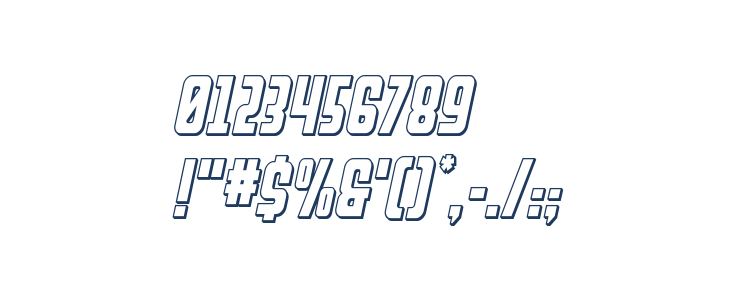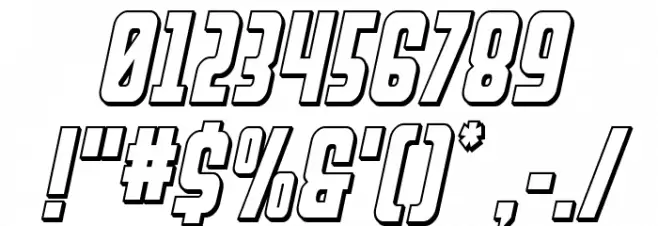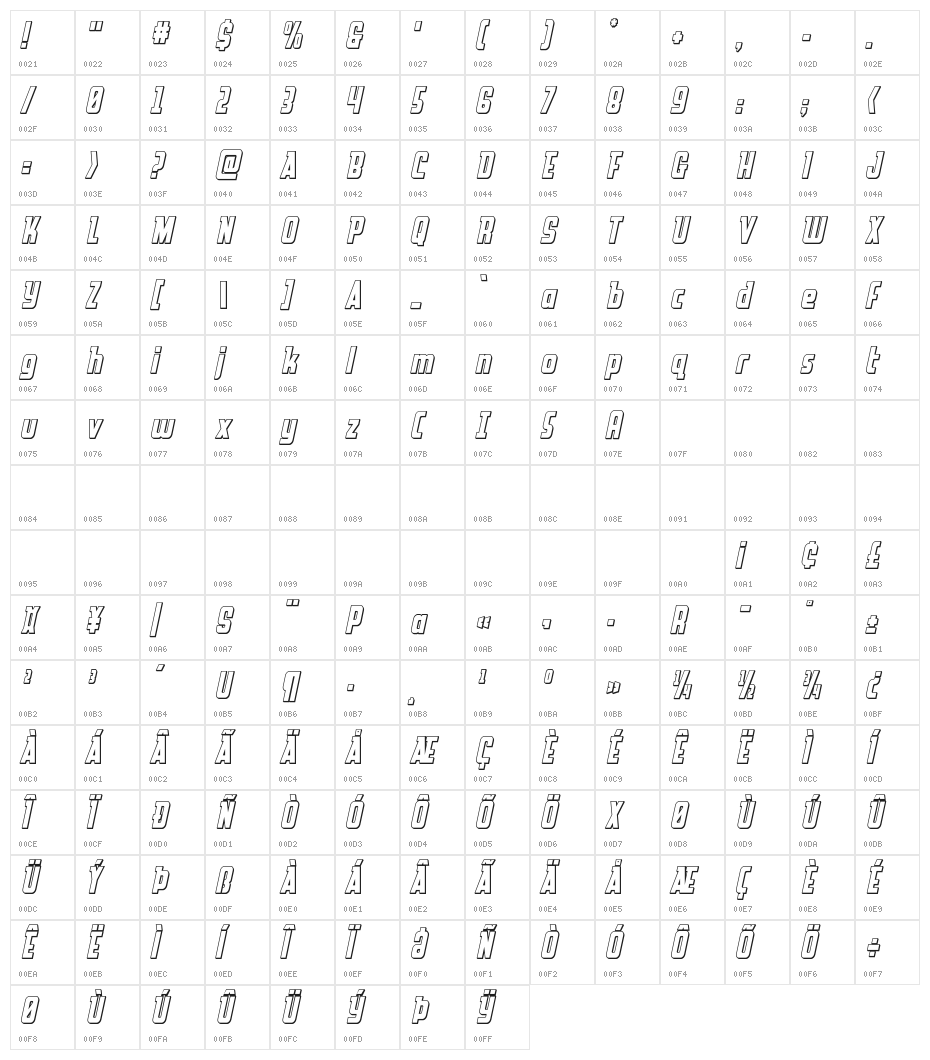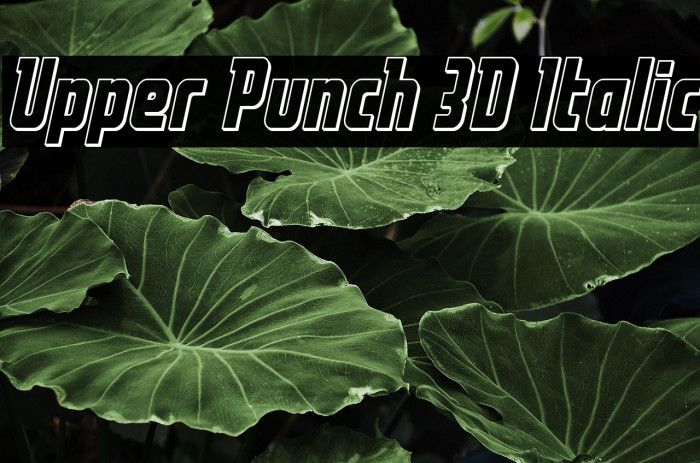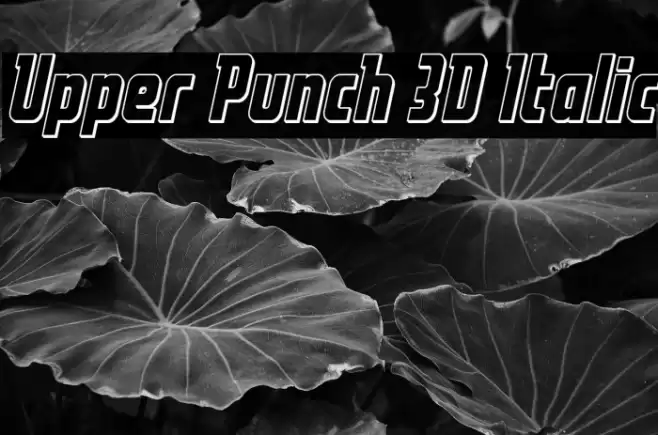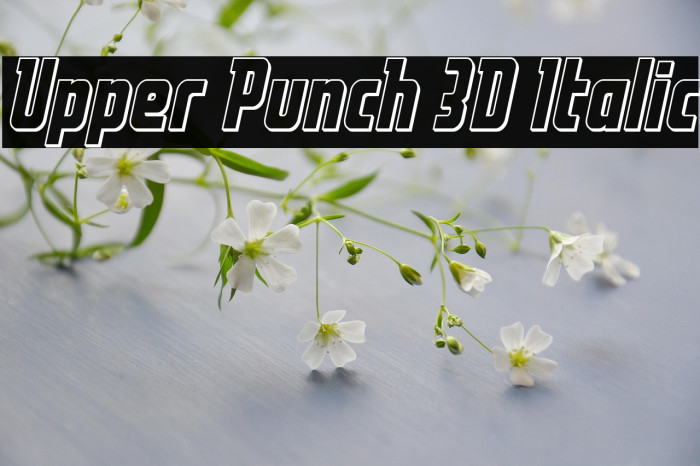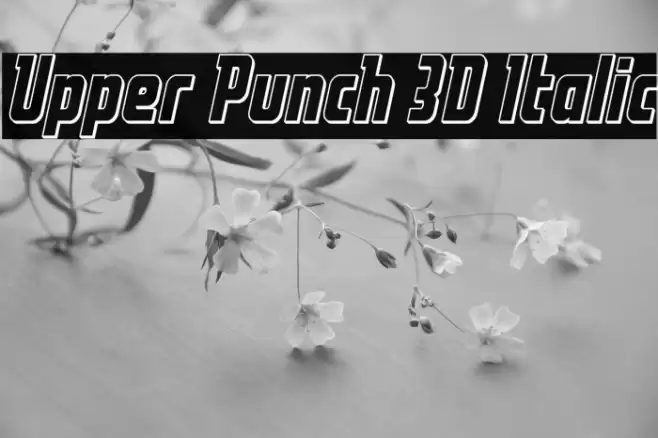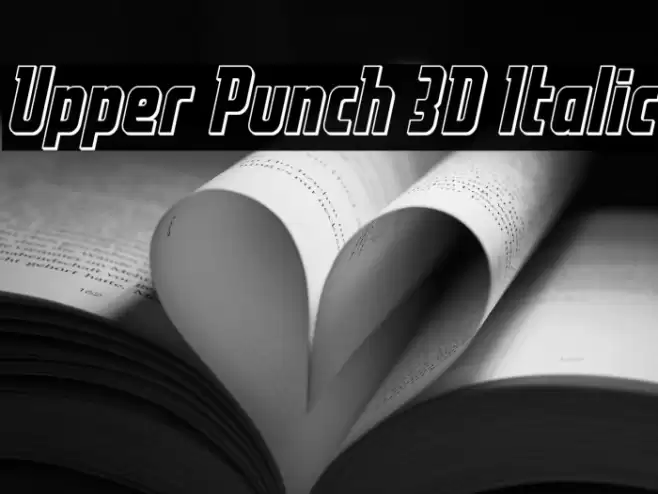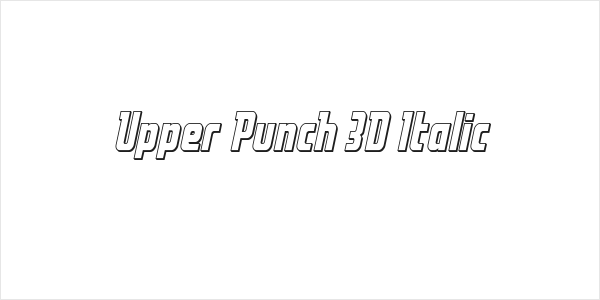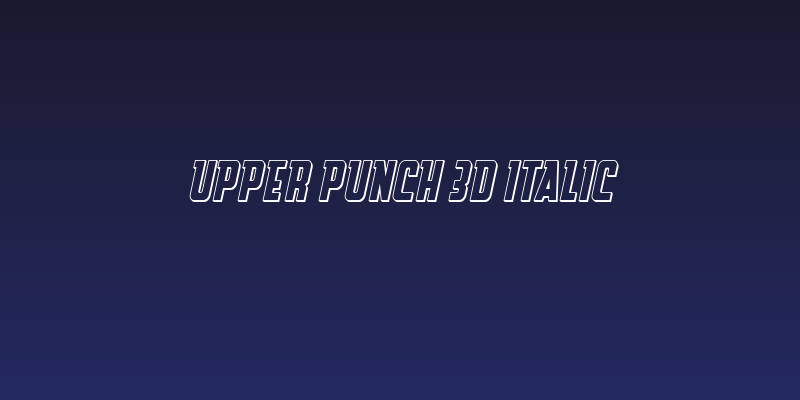
Upper Punch 3D Italic Font
Upper Punch 3D Italic Description
This font features a bold, three-dimensional appearance with a distinct italic slant, creating a dynamic and impactful visual effect. The uppercase and lowercase letters are designed with a strong geometric structure, giving them a modern and futuristic look. The numbers and special characters maintain this style, ensuring consistency across all elements. The 3D effect is achieved through a clever use of shading and outlines, making the text appear as if it is popping off the page. This font is perfect for projects that require a bold statement and a touch of modernity.